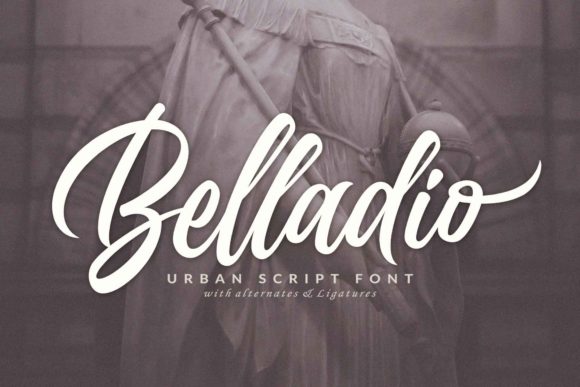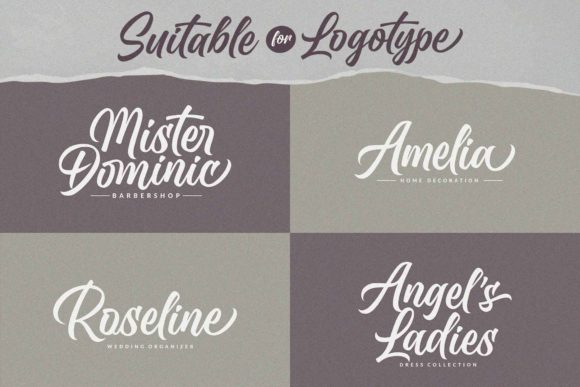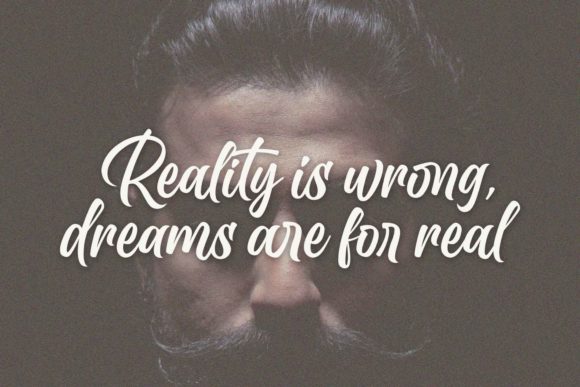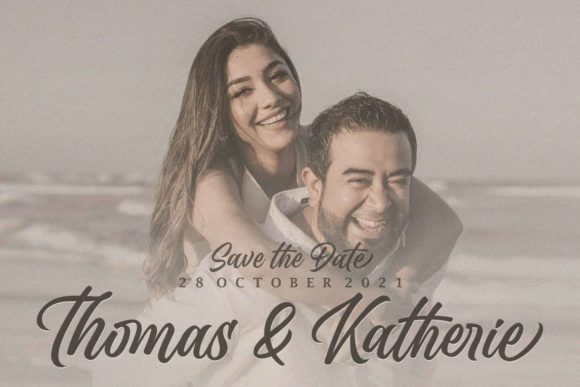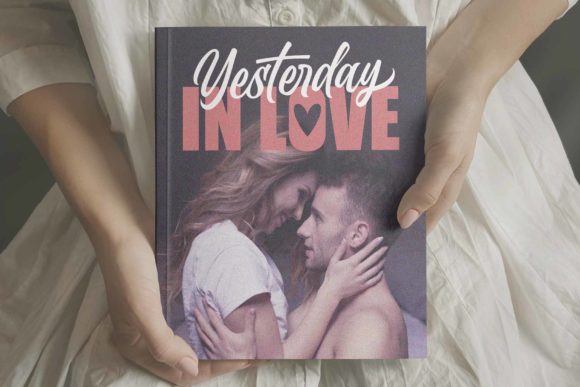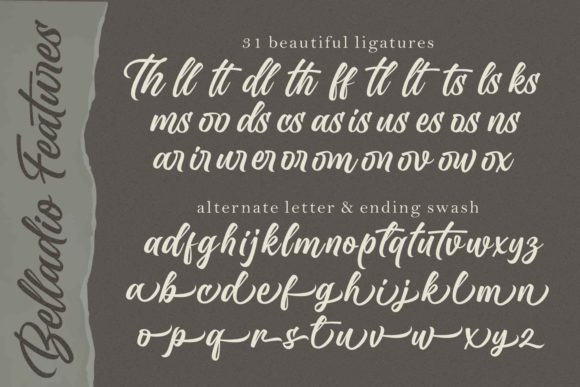
Belladio Font: Elevate Your Designs with Elegance and Confidence
In the world of typography, a font can make all the difference in the aesthetic and tone of a design project. For designers and crafters seeking a modern, stylish, and elegant script font, Belladio is an exceptional choice. This beautifully crafted font is designed to infuse your projects with a personal note of confidence and exuberant energy.
The Essence of Belladio Font
Belladio is a modern script font that exudes sophistication and style. Each character is carefully created with a touch of elegance, making it perfect for a wide range of design applications, from branding and advertising to packaging and digital media. The font’s unique charm lies in its ability to convey confidence and energy, making it an excellent choice for designers looking to create a lasting impression.
One of the standout features of Belladio is its PUA (Private Use Area) encoding. This means that accessing all the glyphs and swashes is incredibly easy. PUA encoding allows designers to access a wide range of characters and alternates, giving them the flexibility to experiment with different styles and arrangements. With Belladio, you can effortlessly create stunning text arrangements that showcase your creativity.
Design Applications and Uses
Belladio’s versatility makes it suitable for various design projects, including:
- Branding and Logo Design: Create a lasting impression with a custom logo that exudes elegance and confidence.
- Advertising and Marketing: Use Belladio to craft compelling ad copy that grabs attention and communicates your message effectively.
- Packaging Design: Add a touch of sophistication to your product packaging with this beautiful script font.
- Digital Media: Use Belladio in your digital projects, such as website headers, social media graphics, and email newsletters.
Why Choose Belladio Font?
With so many fonts available, why choose Belladio? Here are a few compelling reasons:
- Unique and Modern Design: Belladio boasts a fresh and contemporary design that will set your projects apart.
- Elegant and Confident: This font’s elegant and confident tone makes it perfect for designers looking to create a lasting impression.
- Easy to Use: With PUA encoding, accessing glyphs and swashes is a breeze, making it easy to experiment with different styles.
- High-Quality Design: Belladio is crafted with attention to detail, ensuring a high-quality design that will elevate your projects.
Tips for Using Belladio Font
To get the most out of Belladio, here are a few tips:
- Experiment with Different Sizes: Belladio looks great in various sizes, from large headings to smaller body text.
- Play with Swashes and Glyphs: Take advantage of the font’s PUA encoding to experiment with different swashes and glyphs.
- Pair with Complementary Fonts: Combine Belladio with complementary fonts to create a visually appealing contrast.
In conclusion, Belladio is an exceptional script font that offers a unique blend of elegance, confidence, and energy. Its modern design, PUA encoding, and versatility make it an excellent choice for designers and crafters seeking to elevate their projects. Whether you’re working on branding, advertising, packaging, or digital media, Belladio is sure to make a lasting impression.